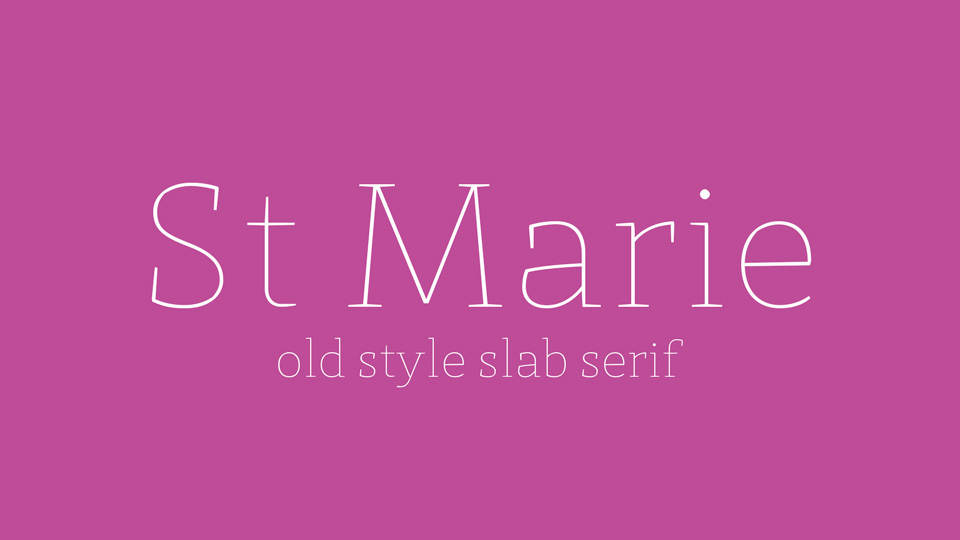
Download St Marie font, an old-style but with a touch of humanistic slab-serif typeface, that loves to be uses in newspapers, books and any other printed medium with a lot of bodycopy.
Designer: Sascha Timplan